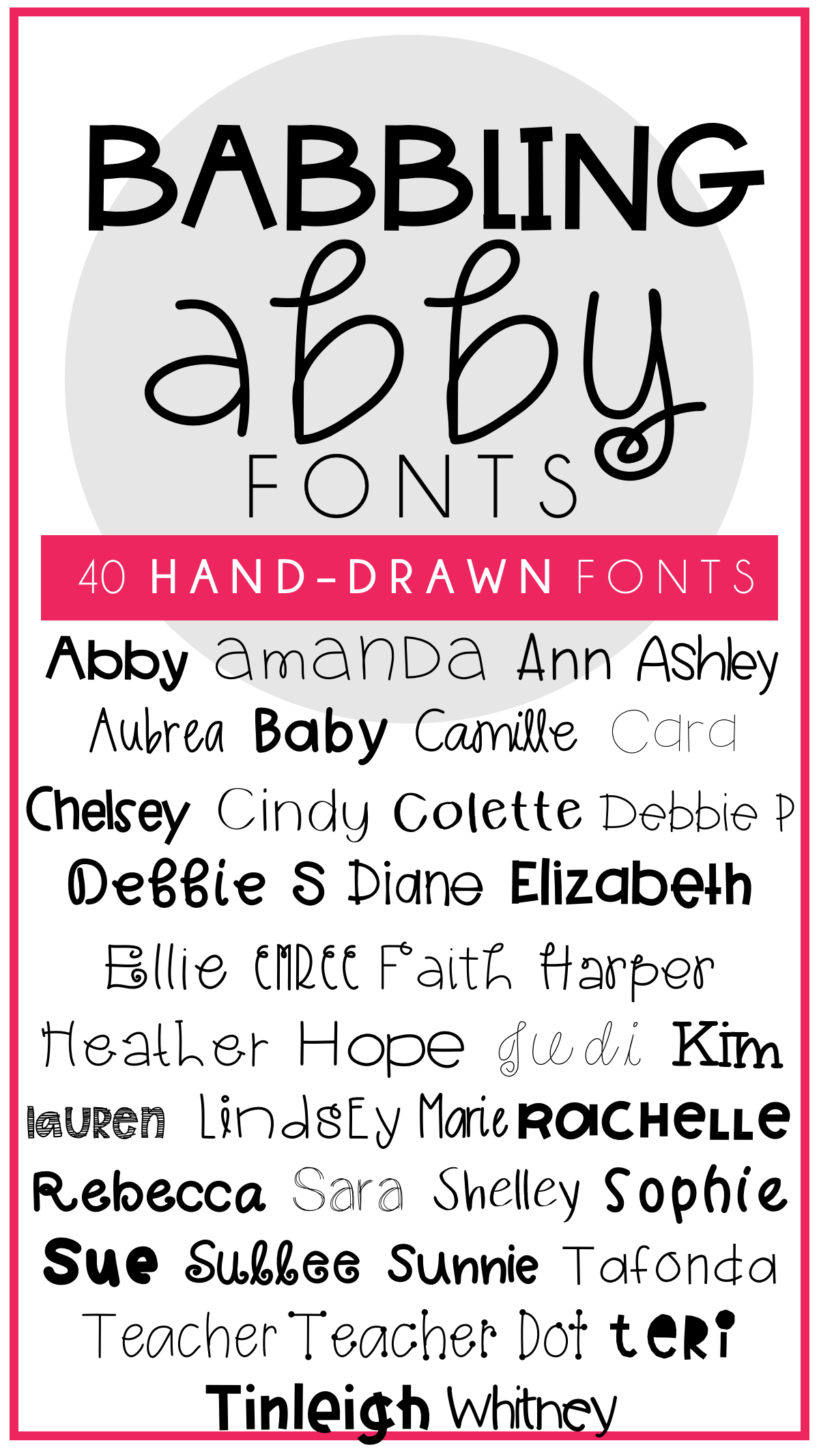
The Best Teacher Fonts Ideas
The Best Teacher Fonts Ideas. Suitable to a wide variety of designs due to its. Teacher is a simple and adaptable script font.
Teacher Is An Elegant Serif Font.
Perfect For Bulletin Boards, Name Tags, Printable Worksheets, Teaching Tools, Classroom Wall Art & More.
Suitable To A Wide Variety Of Designs Due To Its.